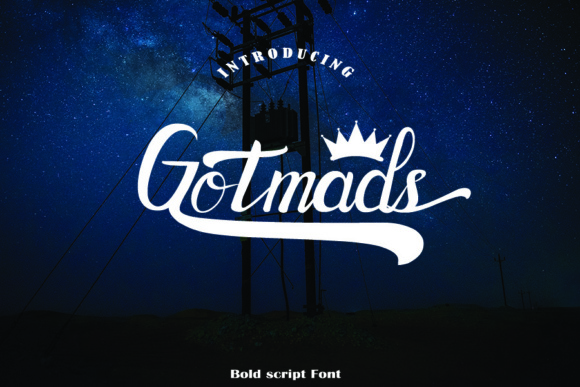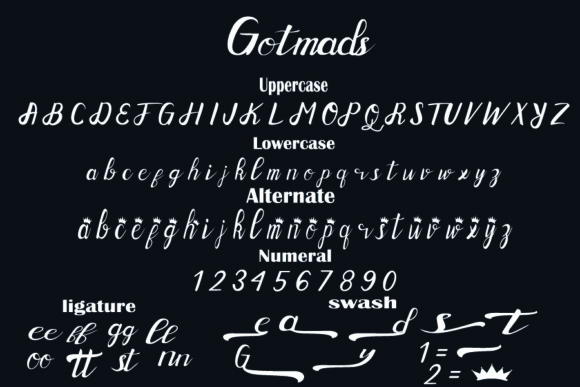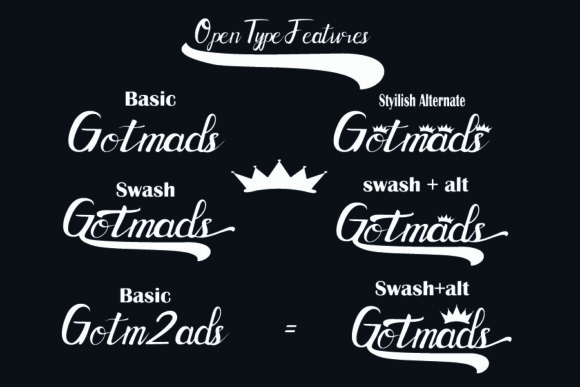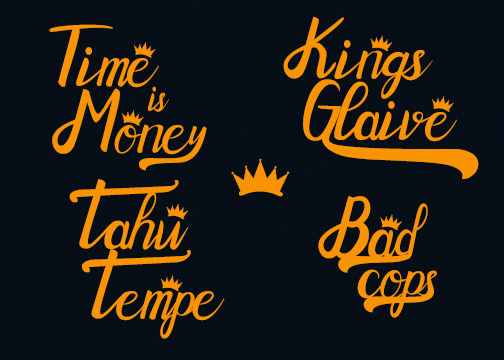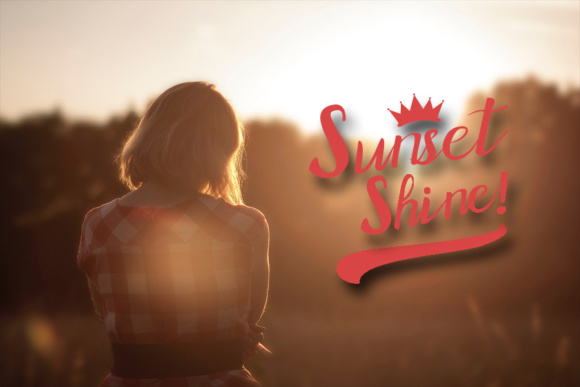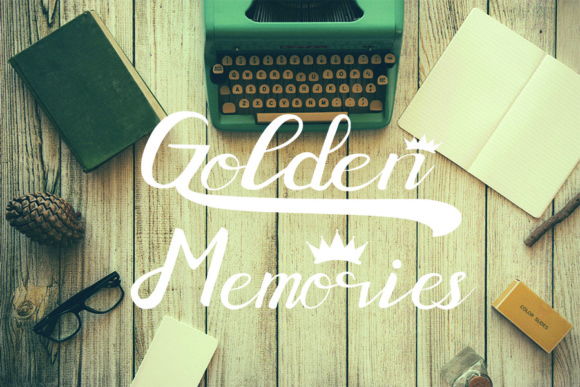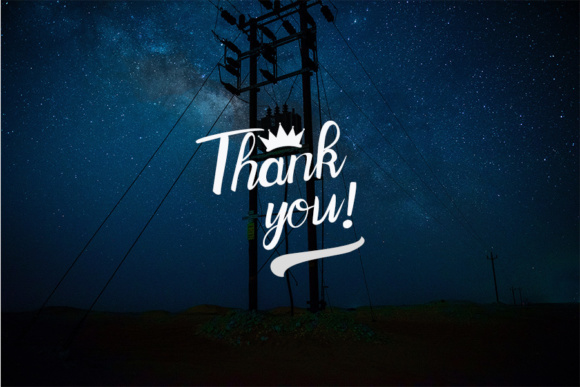
Gotmads Font
About Gotmads Font
Gotmads is a gorgeous, painterly font that can add a fun appeal to your projects. This font comes with tons of stylistic alternates and swashes so you can create cool and impactful designs.